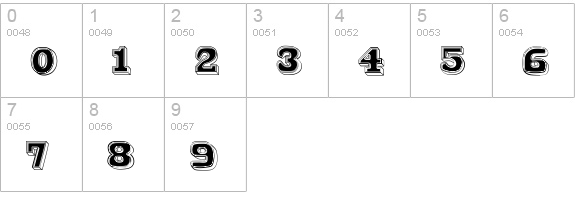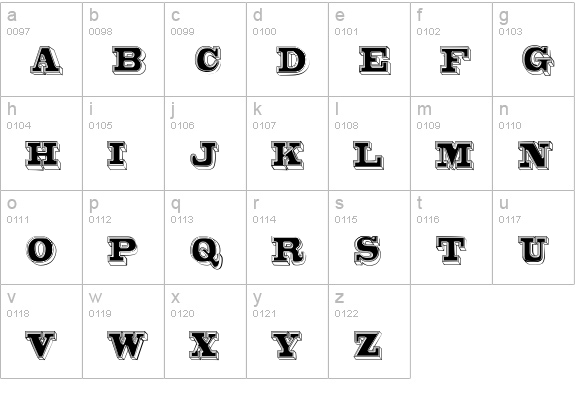
Bro 4D Demo is a free for personal use font in the General > Serif category. It has been downloaded 41 times and is available for Windows, Mac and Linux.
Bro 4D Demo font is a stunning display font that will add a touch of creativity and uniqueness to any project. With its 3D effect and bold letterforms, this font is perfect for making a statement. Whether you're designing a logo, poster, or any other graphic, Bro 4D Demo will grab attention and leave a lasting impression. One of the best things about Bro 4D Demo font is that it is completely free to download at FontsMarket.com. This means that you can easily access this amazing font without having to spend a dime. With its high-quality design and versatile style, Bro 4D Demo font is a must-have for any designer or creative professional. Featuring a wide range of characters and symbols, Bro 4D Demo font allows you to create eye-catching designs with ease. Its clean lines and modern aesthetic make it a perfect choice for both digital and print projects. Whether you're designing a website, creating social media graphics, or designing a flyer, Bro 4D Demo font will add a touch of sophistication and style. Not only is Bro 4D Demo font visually appealing, but it is also incredibly easy to use. Its user-friendly interface makes it accessible to designers of all skill levels, allowing you to quickly and effortlessly create stunning designs. With its bold and attention-grabbing style, Bro 4D Demo font will make your designs stand out from the crowd. So why wait? Download Bro 4D Demo font for free at FontsMarket.com and elevate your designs to new heights. Whether you're a professional designer or just starting out, this font is sure to become a valuable addition to your font library. Don't miss out on the opportunity to add a touch of creativity and uniqueness to your projects with Bro 4D Demo font.